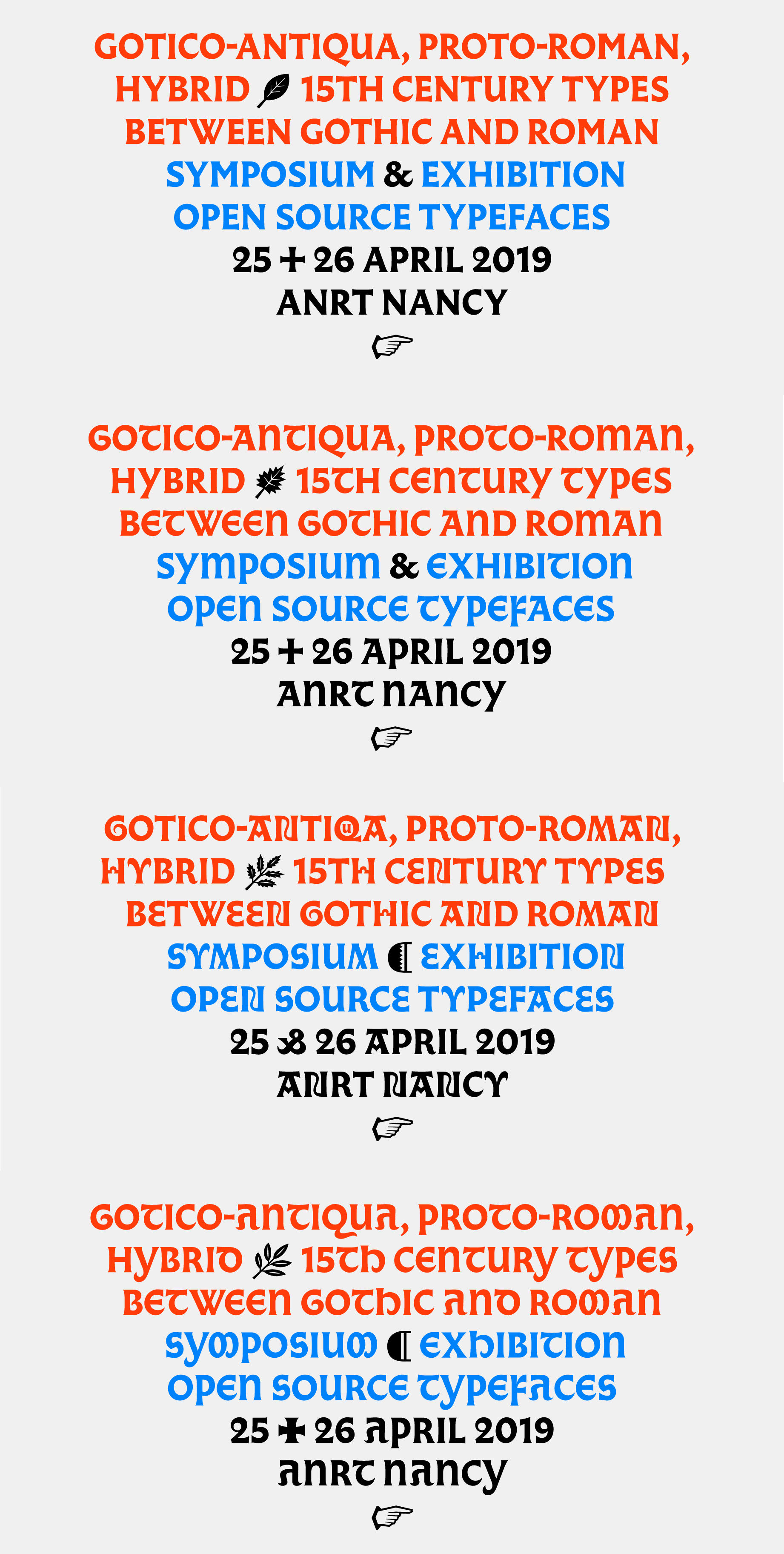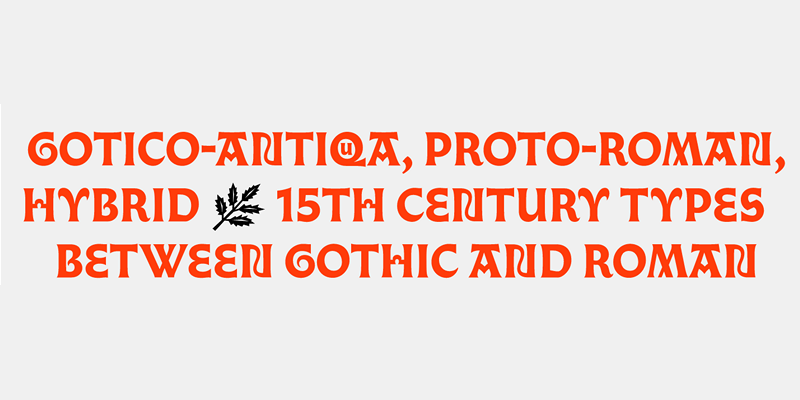
Gotico-Antiqua, Proto-Roman, Hybrid: Open Source 15th Century Fonts
This pack contains 15 fonts and one set of initial letters, produced by Rafael Ribas & Alexis Faudot (researchers at ANRT). This open source licensed can be used upon personal or commercial projects. This digital typefaces are the result of a thorough an academic analysis and redesign of the 15th century originals.